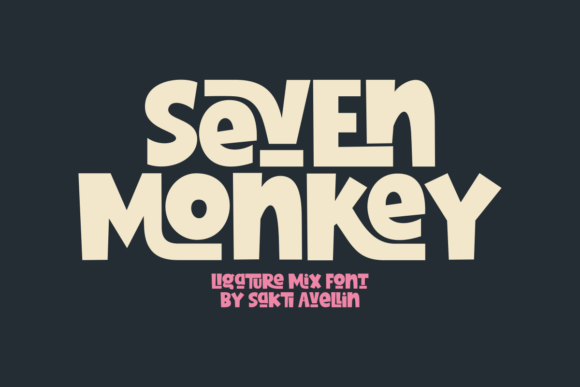
Seven Monkey: A Bold Typeface That Elevates Your Creative Vision
Typography plays a crucial role in design, and choosing the right font can elevate a project from forgettable to unforgettable. Enter Seven Monkey β a lively, expressive typeface that blends bold, rounded block shapes with clever ligatures to create a unique visual rhythm. Whether you're designing a logo, crafting social media content, or printing on merchandise, Seven Monkey offers a playful yet professional edge that sets your work apart.
But like any design tool, it's not without its pitfalls. Many users overlook key considerations when selecting or applying Seven Monkey, which can impact readability, brand consistency, or even licensing compliance. Understanding these nuances ensures you make the most of this vibrant typeface without compromising your creative goals.
Why Seven Monkey Stands Out
Seven Monkey shines in projects that demand personality and visual impact. Its blocky, slightly rounded letterforms exude strength and friendliness β a rare combination that makes it ideal for brands aiming to appear both bold and approachable. The font's standout feature lies in its custom ligatures, which subtly enhance the flow and aesthetic of connected letters. This gives your text a handcrafted, dynamic feel that's hard to replicate with more conventional fonts.
Its versatility is another major draw. From branding logos and product packaging to t-shirts and digital social media posts, Seven Monkey adapts well across mediums. It's particularly effective in designs that target younger audiences or aim to evoke joy β think children's birthday invitations, baby showers, or cheerful promotional material.
Overusing It in Complex Layouts
While Seven Monkey commands attention, it's not always the best choice for lengthy body text or intricate designs. Some users mistakenly apply it across entire websites or marketing materials, leading to visual fatigue. The font's bold nature works best in short bursts β headlines, slogans, or featured quotes β where it can shine without overwhelming the reader.
Better approach: Use Seven Monkey for headings or key phrases and pair it with a clean, minimalist sans-serif for body copy. This contrast ensures readability while preserving the font's energetic appeal.
Misjudging Readability at Small Sizes
Seven Monkey's distinctive ligatures and rounded edges give it character, but these features can also reduce clarity at smaller sizes. Designers sometimes use it in mobile app interfaces or small print without testing legibility, which can frustrate users or obscure important messaging.
Better approach: Preview the font at various sizes before finalizing your design. If it's going to be used in a mobile setting or printed small, consider using it only for headlines or ensuring adequate spacing and contrast to maintain readability.
Mismatching the Font with the Brand Tone
Every font conveys a mood, and Seven Monkey leans toward the playful and energetic. While that's perfect for youth-oriented brands or fun campaigns, it might clash with more formal or serious contexts. Using it for a law firm's website or a financial services brochure, for example, could unintentionally undermine the brand's professionalism.
Better approach: Align your font choice with your brand's personality. If you're aiming for a whimsical, creative, or approachable tone, Seven Monkey is an excellent fit. For more formal or corporate settings, consider a more restrained typeface and use Seven Monkey sparingly for accents or calls to action.
Maximizing Seven Monkeyβs Potential
When used thoughtfully, Seven Monkey can transform your creative work. Here are a few tips to get the most out of it:
- Pair it wisely: Combine Seven Monkey with neutral, minimalist fonts to balance its boldness and keep the overall design cohesive.
Whether you're a seasoned designer or just starting out, taking the time to evaluate how you use Seven Monkey can make a significant difference in your final output. By choosing the right context, pairing it thoughtfully, and respecting its design nuances, youβll be well on your way to creating standout visuals that resonate with your audience.